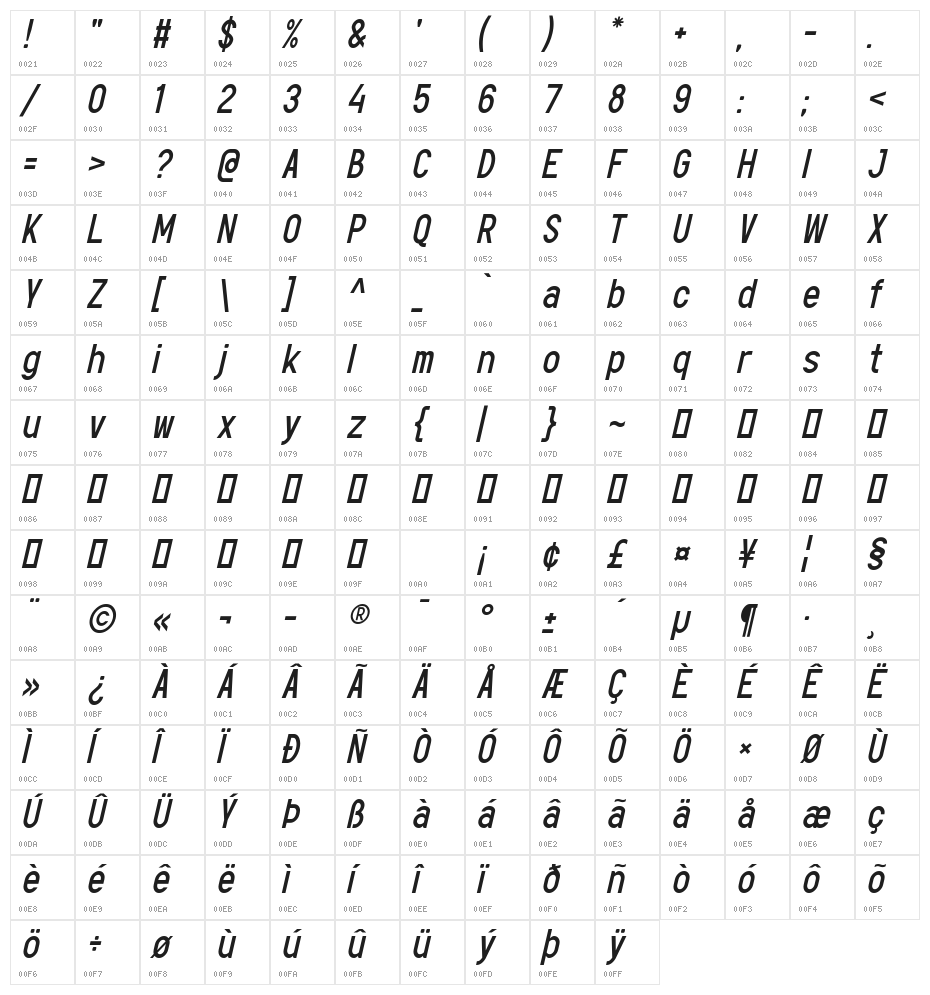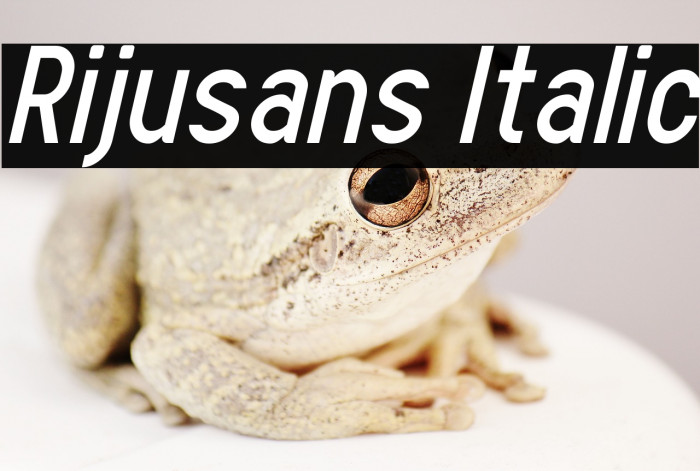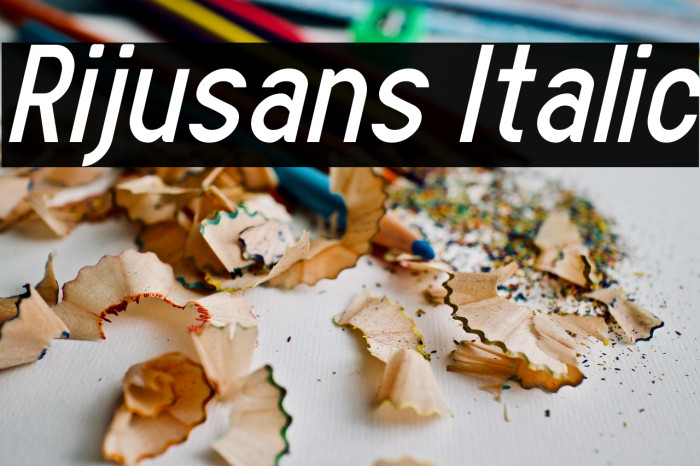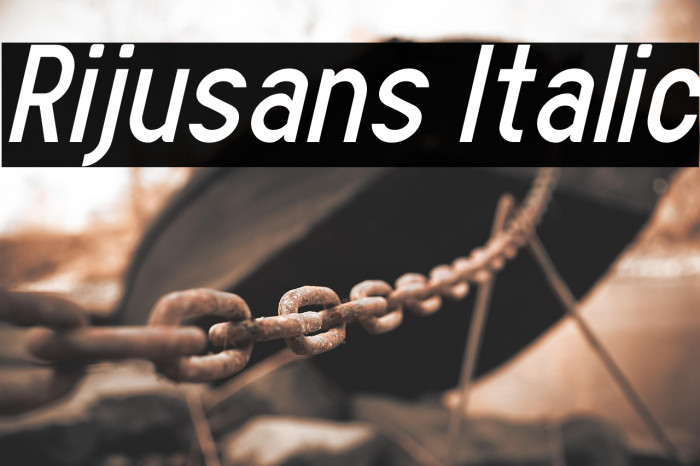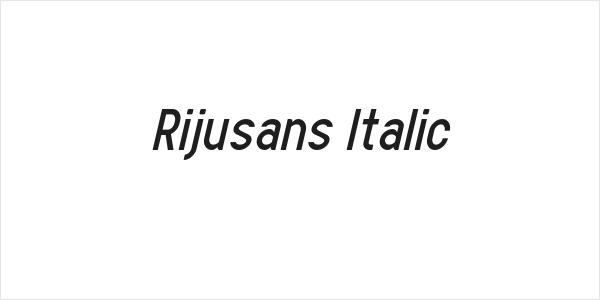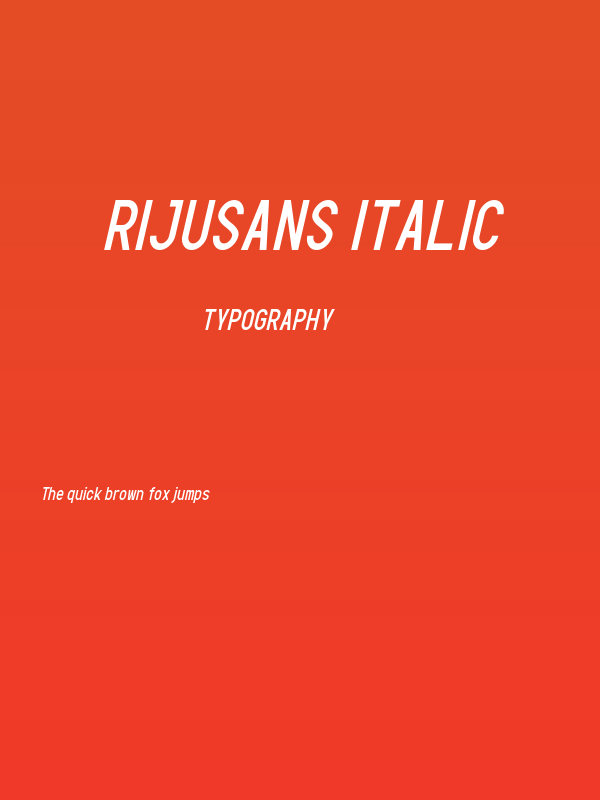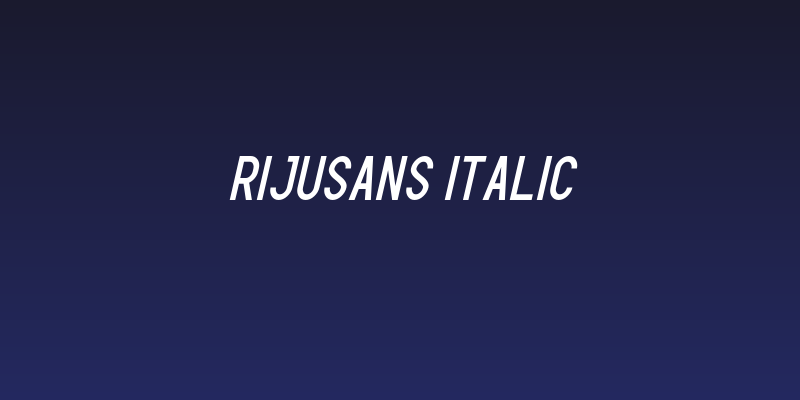
Rijusans Italic Font
Rijusans Italic Description
This font features a sleek, modern design with a slight slant, giving it an italicized appearance. The characters are clean and streamlined, with a sans-serif style that emphasizes simplicity and readability. The uppercase and lowercase letters maintain a consistent style, with smooth curves and straight lines that create a harmonious look. The numbers and special characters are equally well-designed, ensuring uniformity across all elements. The font's overall aesthetic is contemporary and professional, making it suitable for a variety of applications.